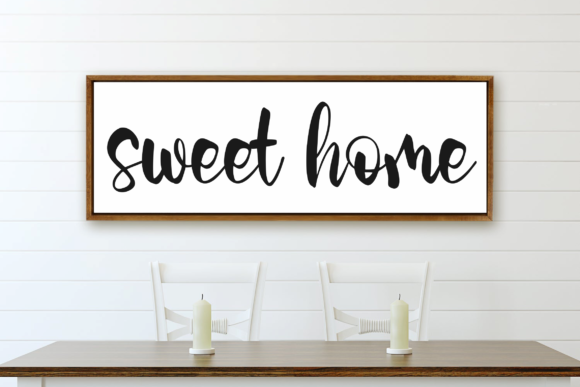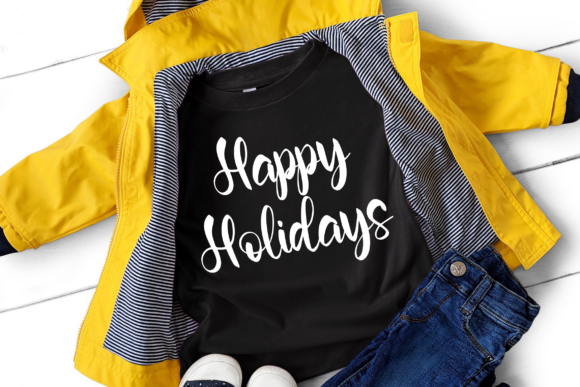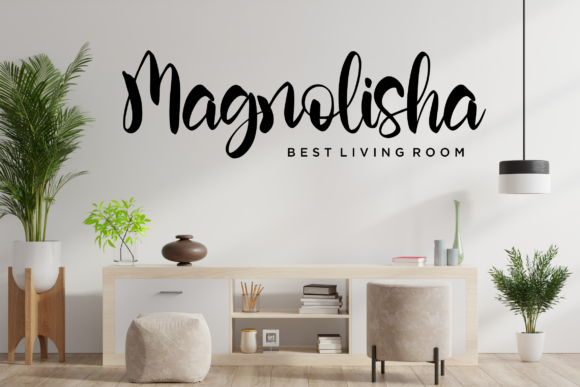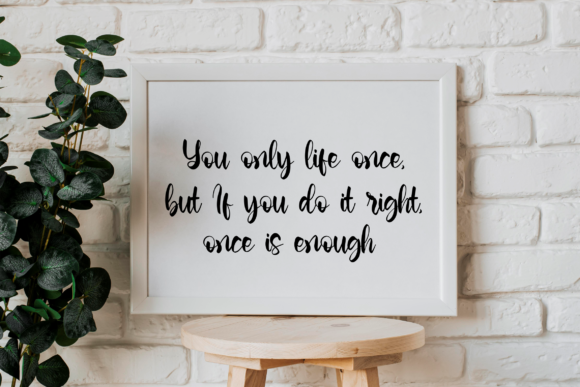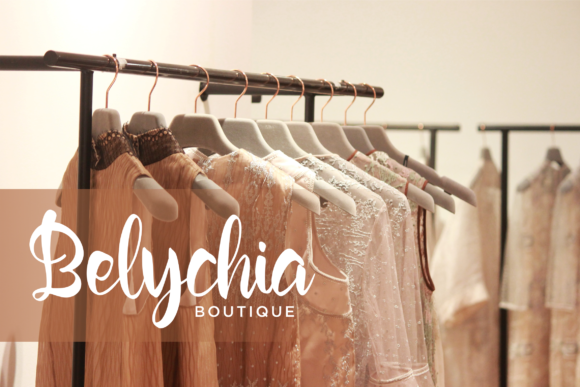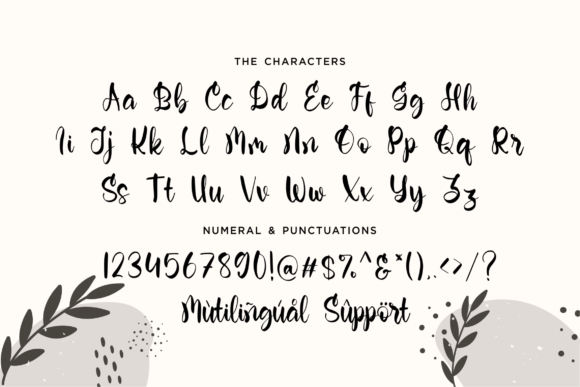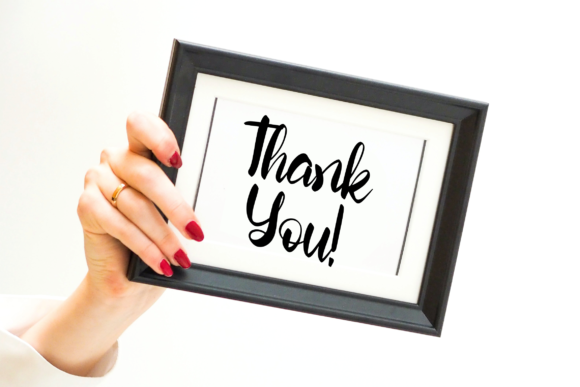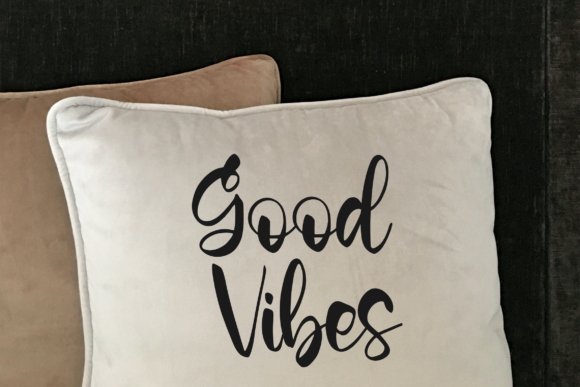
Bobbiewish Font
About Bobbiewish Font
Bobbiewish is a gorgeous and trendy looking handwritten font. Whether you use it for cartoon related designs, children games or just any creation that requires a lovely touch, this font will be an amazing choice.